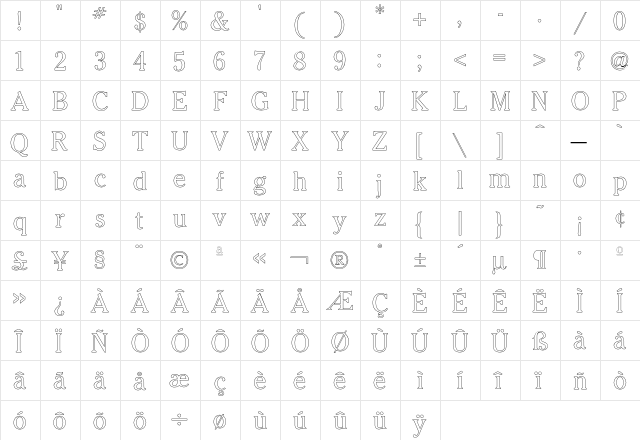
Cheltenham Outline
Design Context for Cheltenham Typeface
Cheltenham brings ornamental detail and strong personality to headlines and identities, where visual impact matters more than quiet functionality.
Font Pairing: Pair with a clean neutral sans-serif for body copy to let Cheltenham's character lead without overwhelming the composition.
Pro Tip: Treat Cheltenham as the centrepiece of your typographic hierarchy. One strong heading set in a decorative face can carry an entire layout.